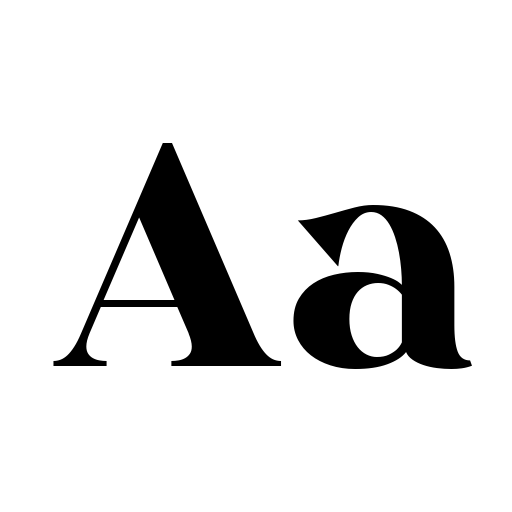
Bestorika is a bold serif font with strong contrast between thick and thin strokes, giving it a refined and elegant appearance. Its classic letterforms, featuring bracketed serifs and distinctive details like the curved tail of the Q and double-story g, make it ideal for luxury branding, editorial headlines, and sophisticated packaging. This font combines tradition with a modern flair, making it perfect for projects that want to communicate quality and timeless style.
Bestorika Font
About Bestorika Font
| Designer | Mokatype 2020 - Abdul Malik - Adriansyah - Wirda Fauzah |